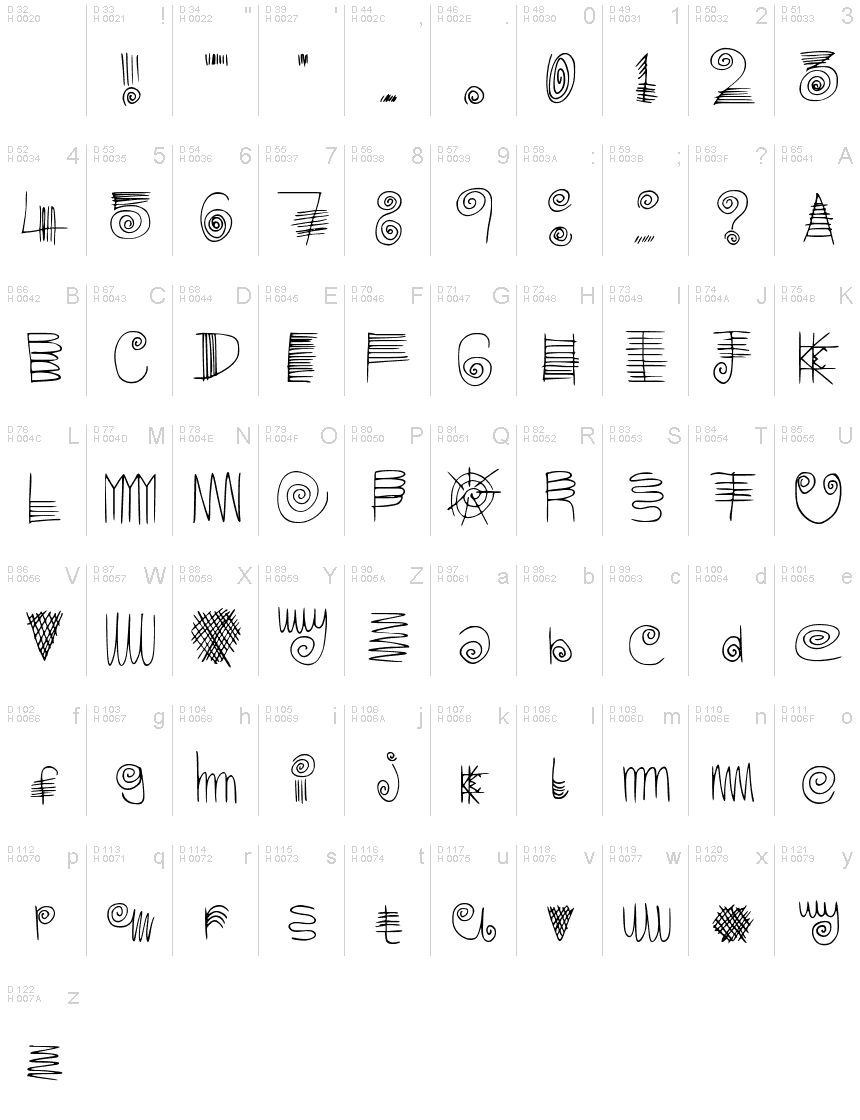
Ladder Writing Regular
Ladder Writing, designed by Star-dragon, is a captivating display font that adds a touch of whimsy to any project. With its light weight and curly style, this font is perfect for creating eye-catching headlines, titles, or logos. Its playful curves make it suitable for children's books, invitations, party decorations, and even websites looking to add a unique flair. Ladder Writing will effortlessly elevate your designs with its artistic charm and make them stand out from the crowd. Let your creativity climb new heights with this delightful font!